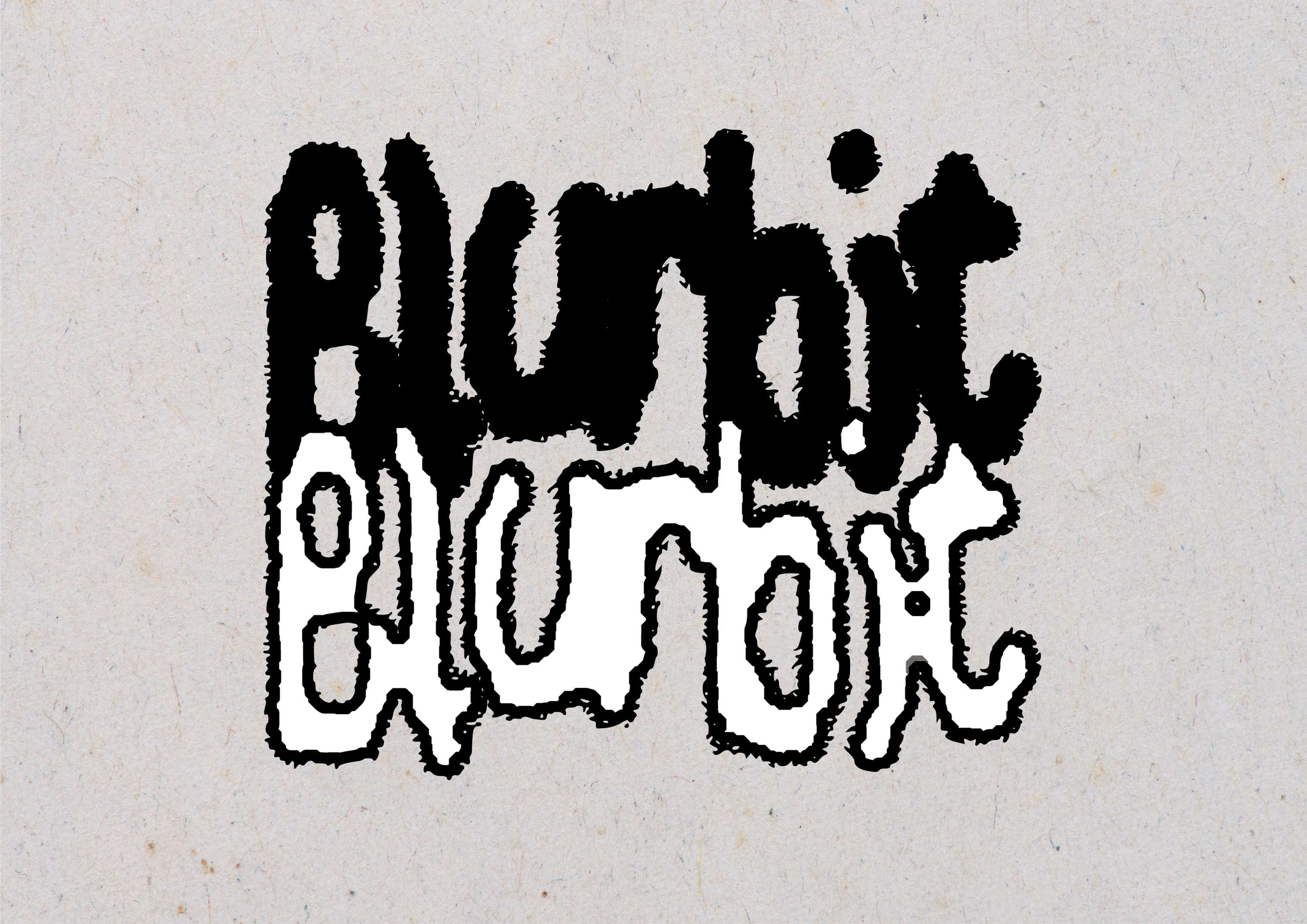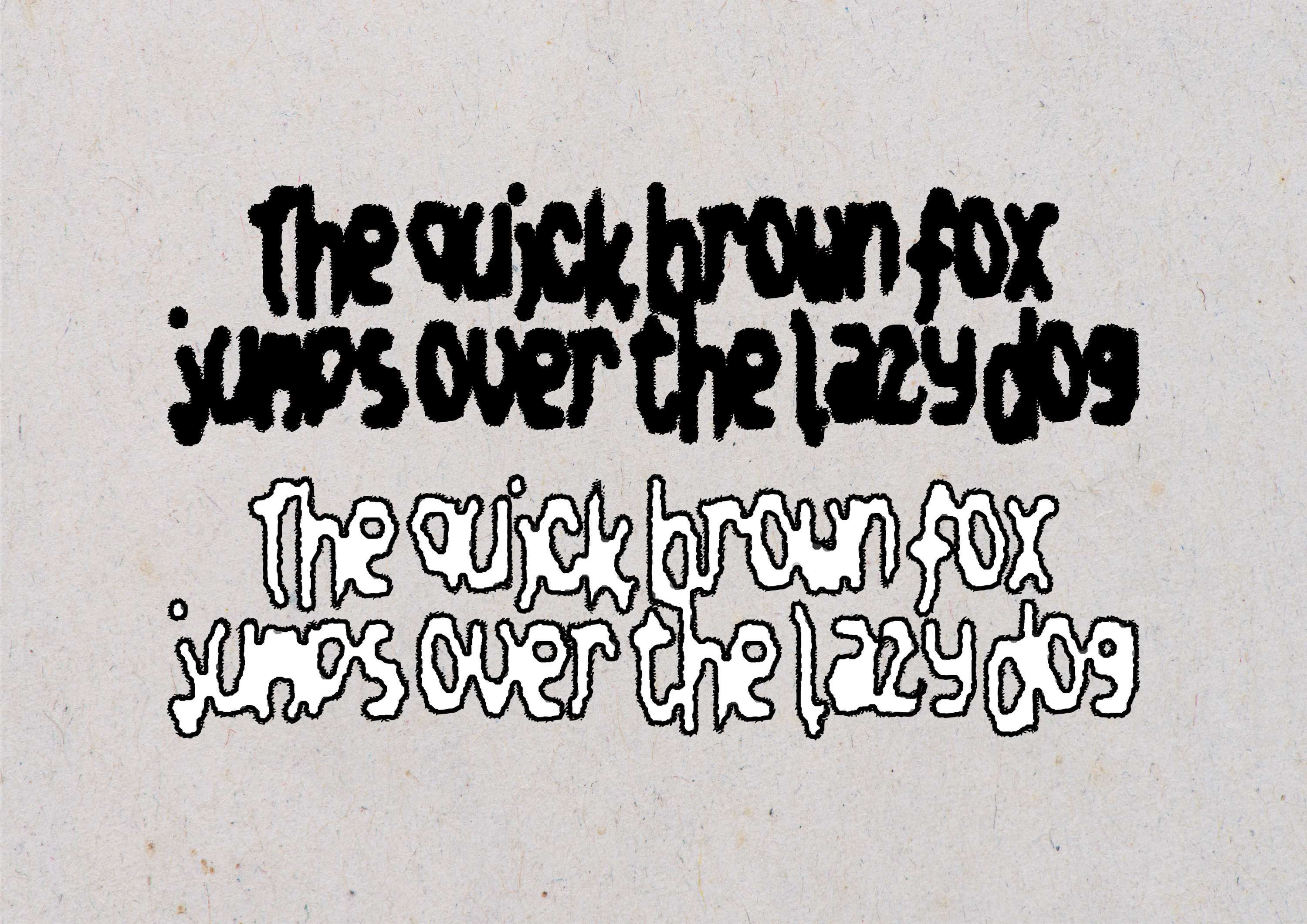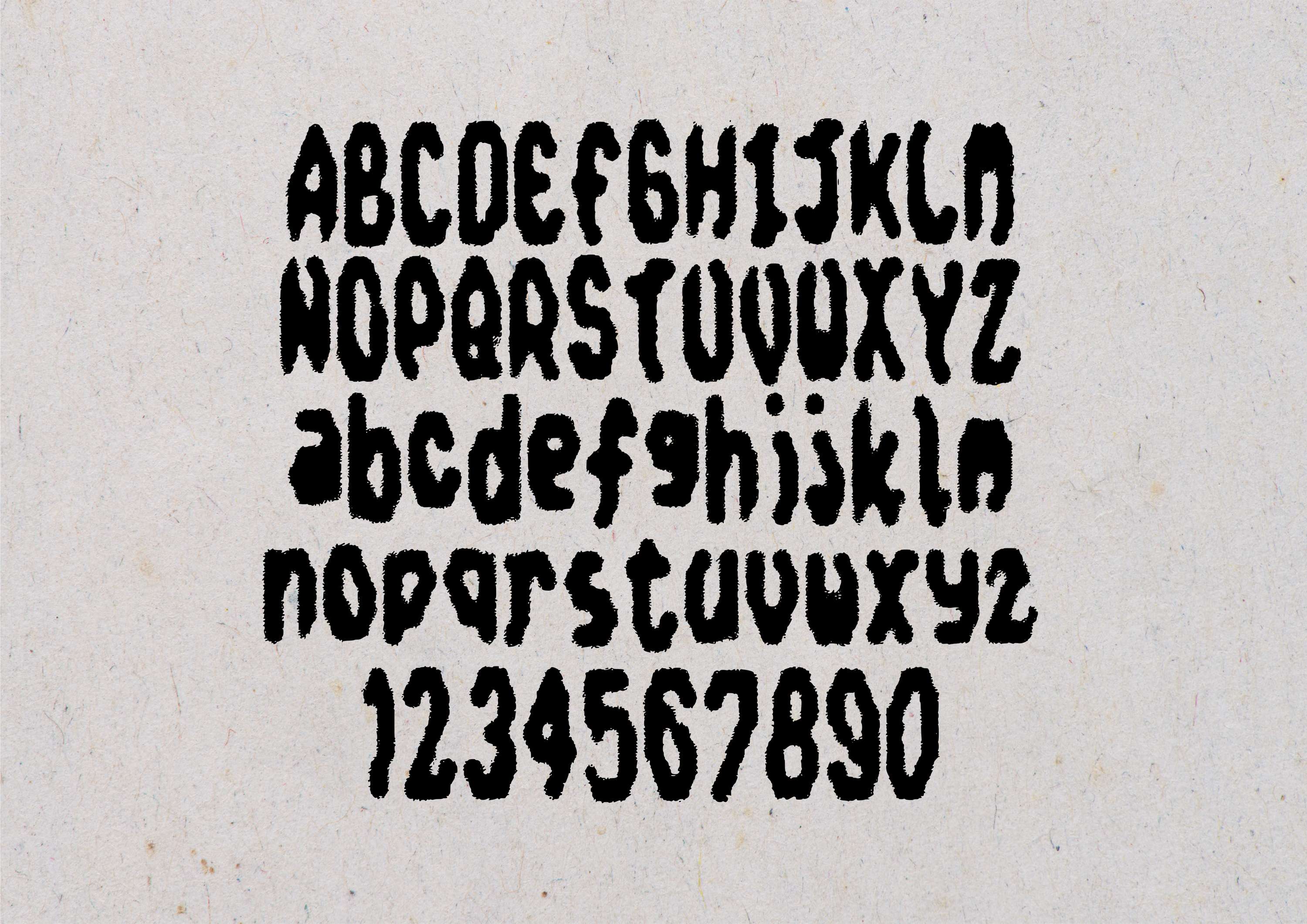
Blurbit Typeface
Blurbit is a Font I developed through a combined process of digital manipulation, thermal printing & photo scanning. Each letter & symbol was then processed through a guide & converted into a complete OTF Typeface.
Blurbit Typeface by Oli Southall